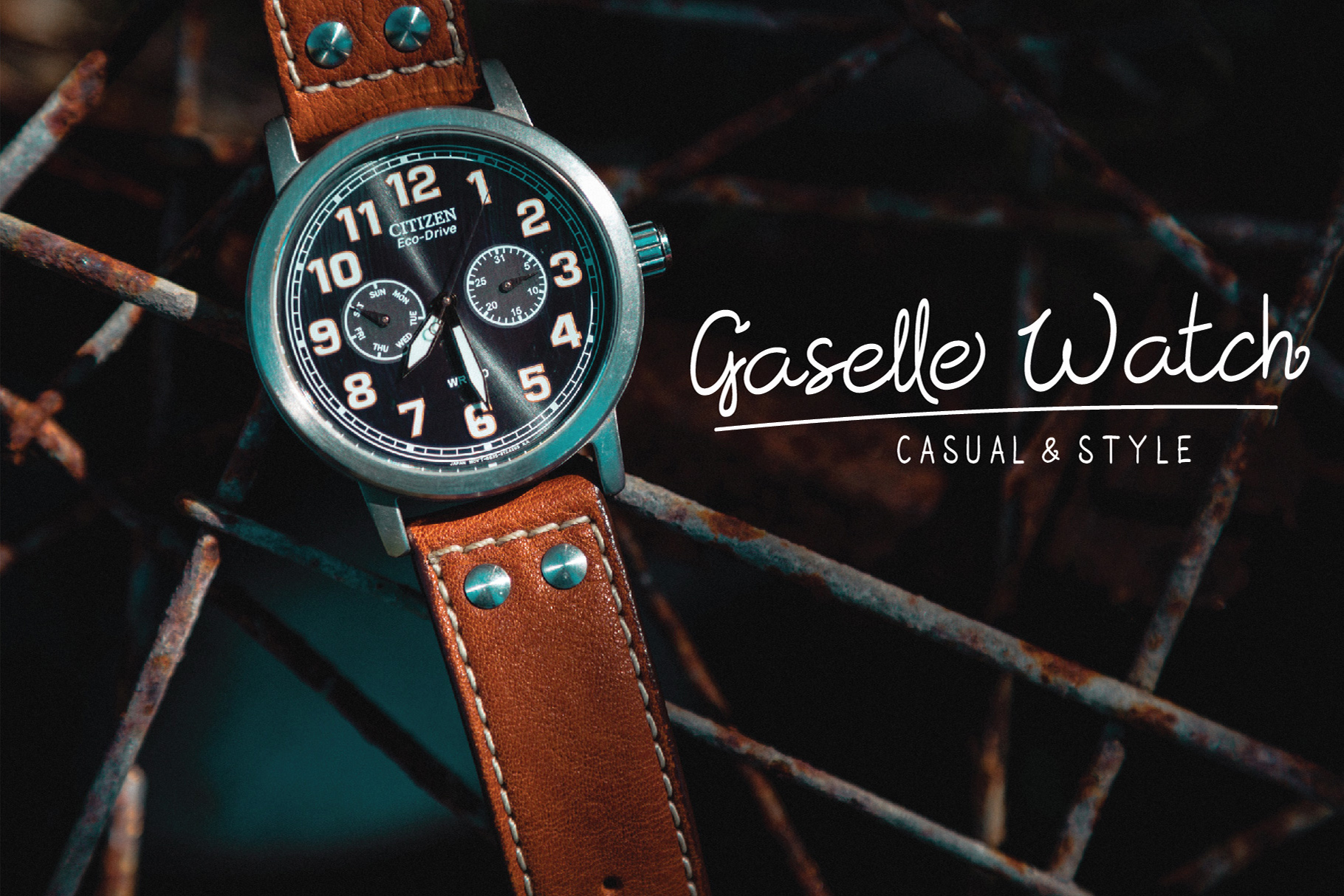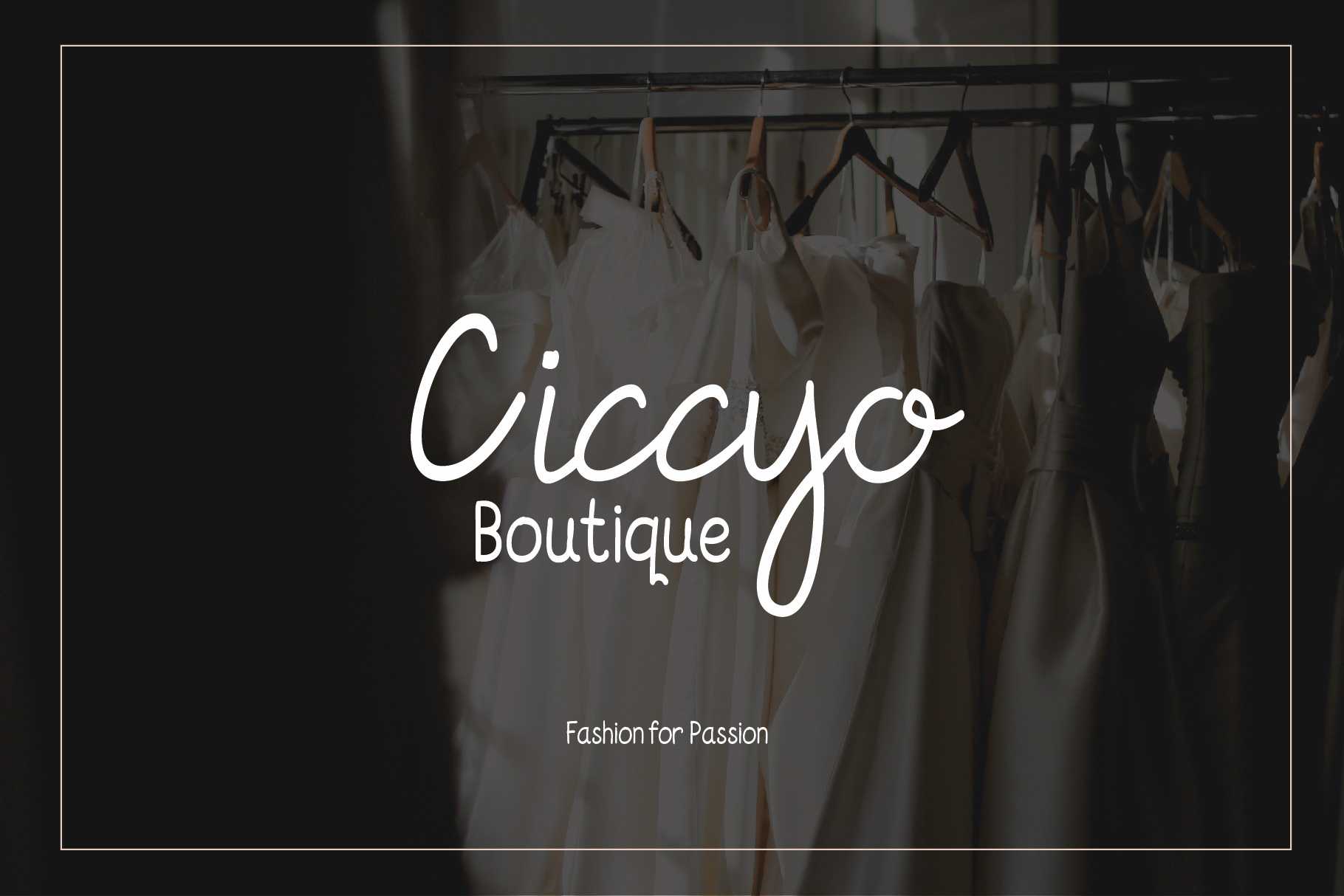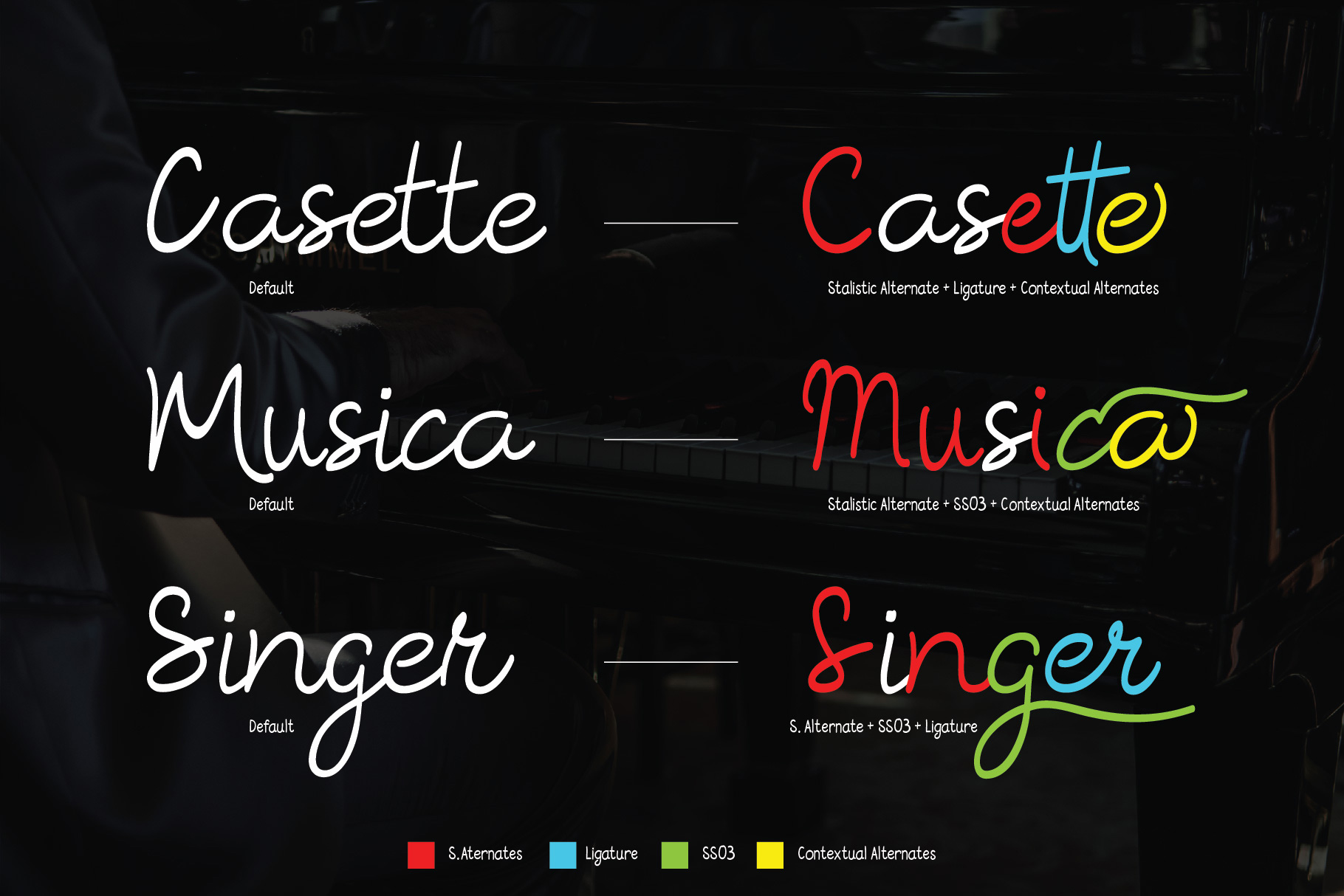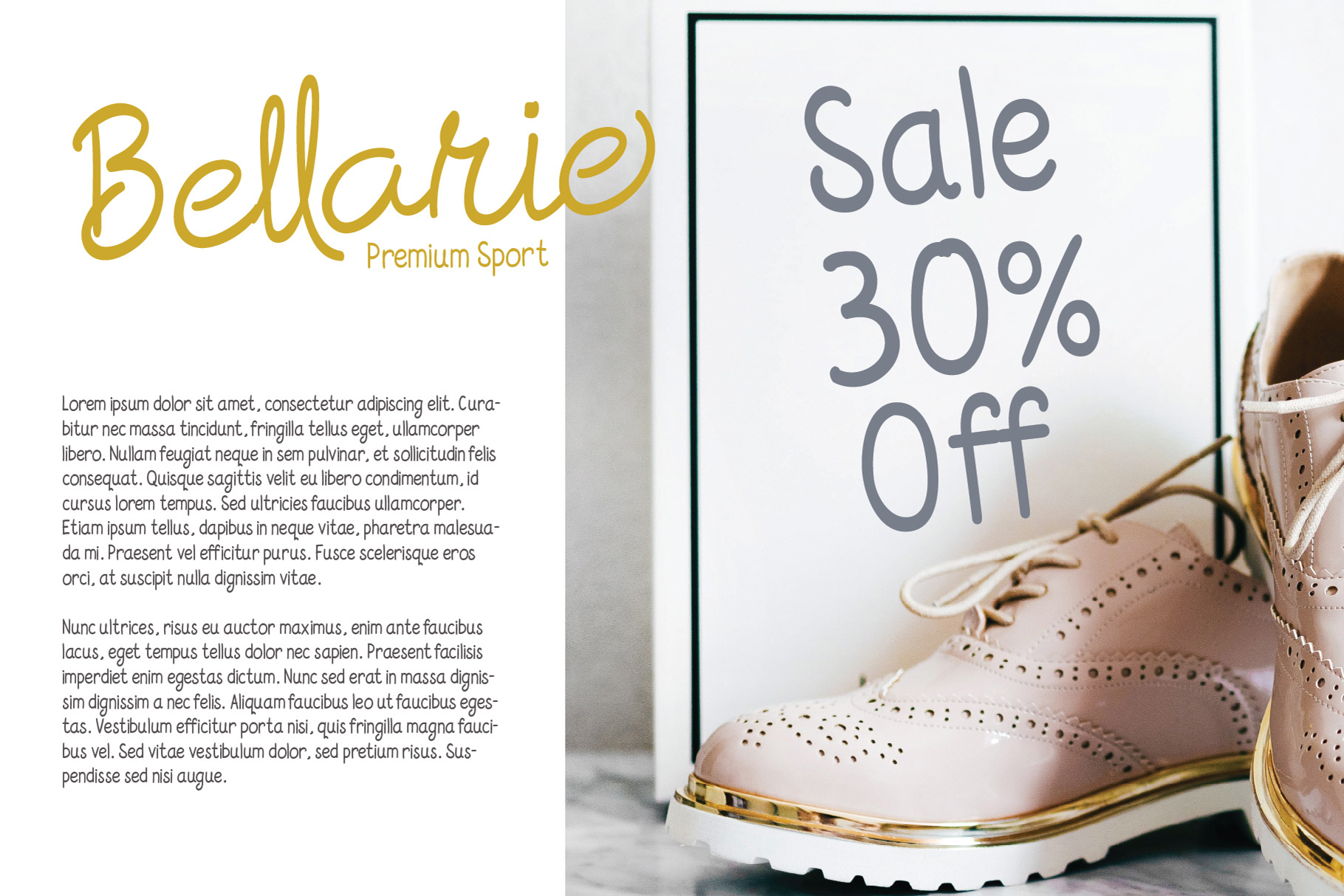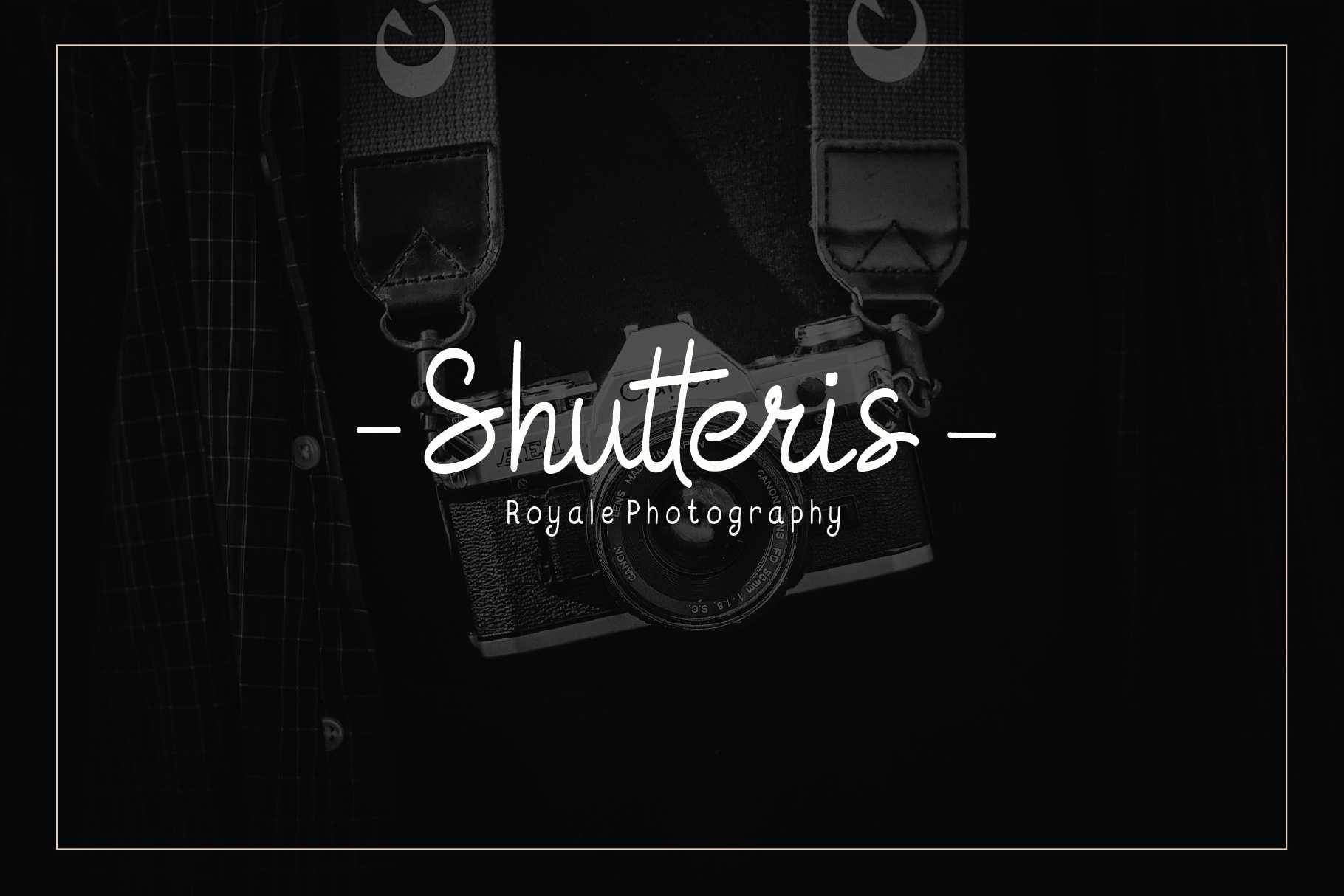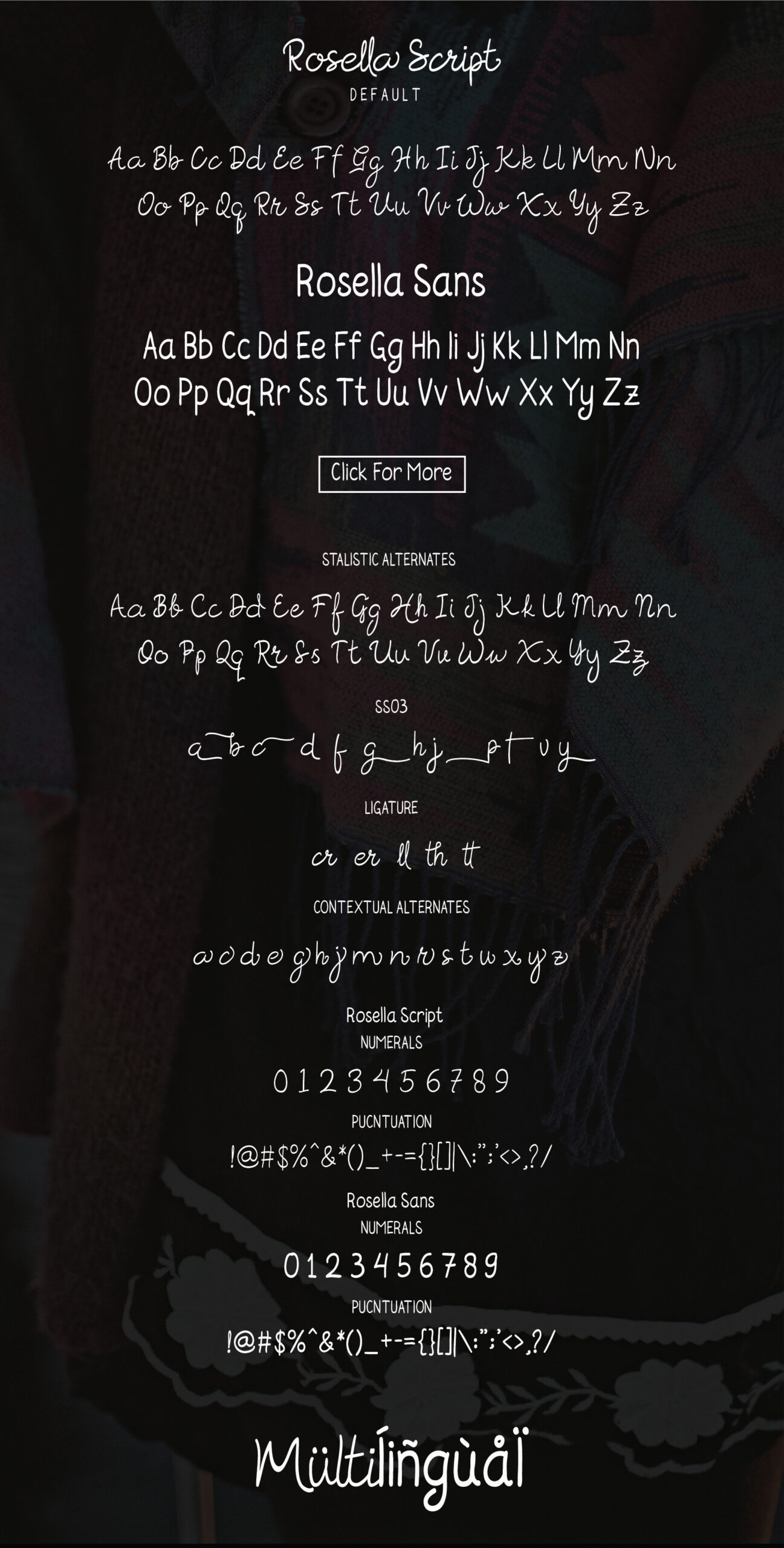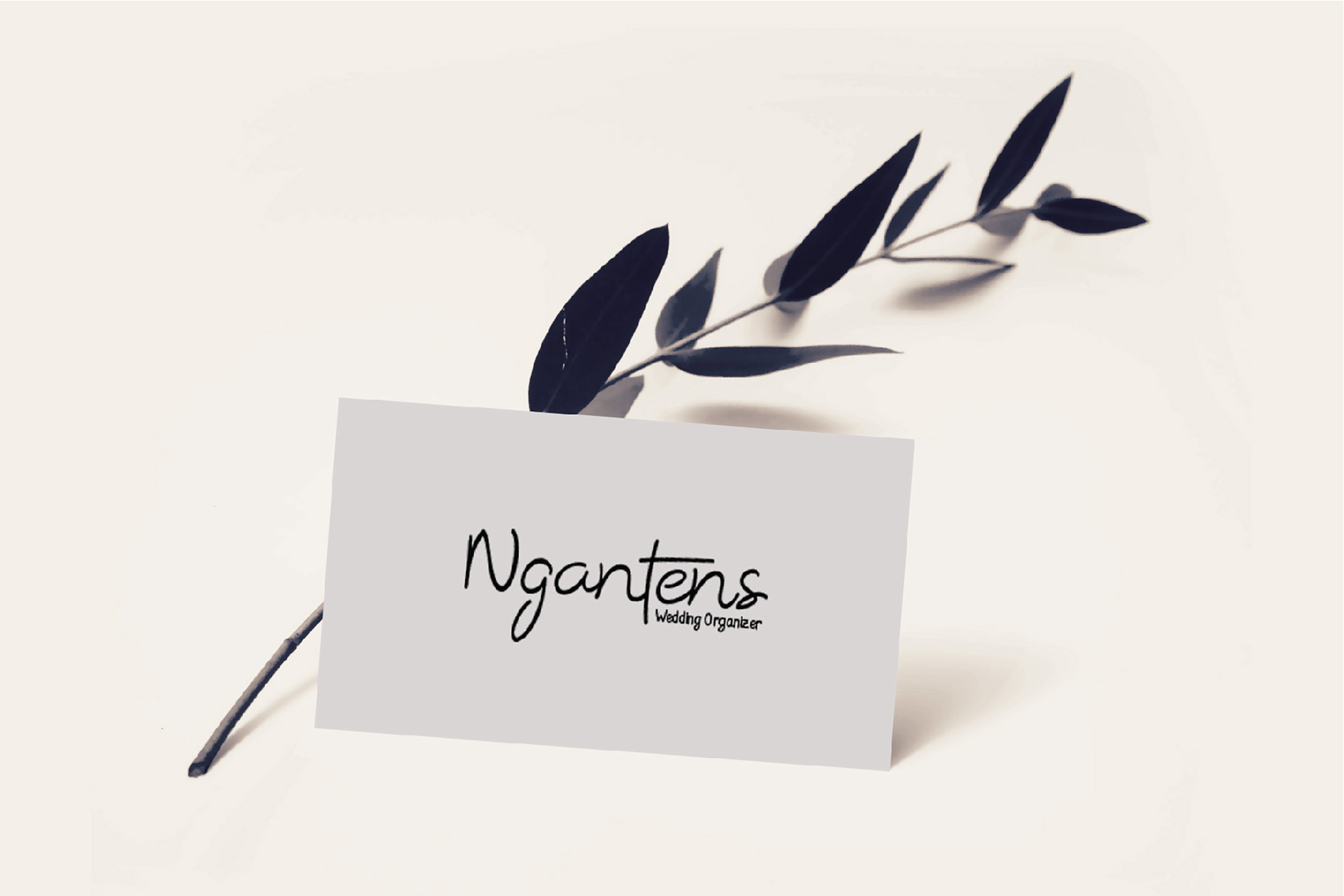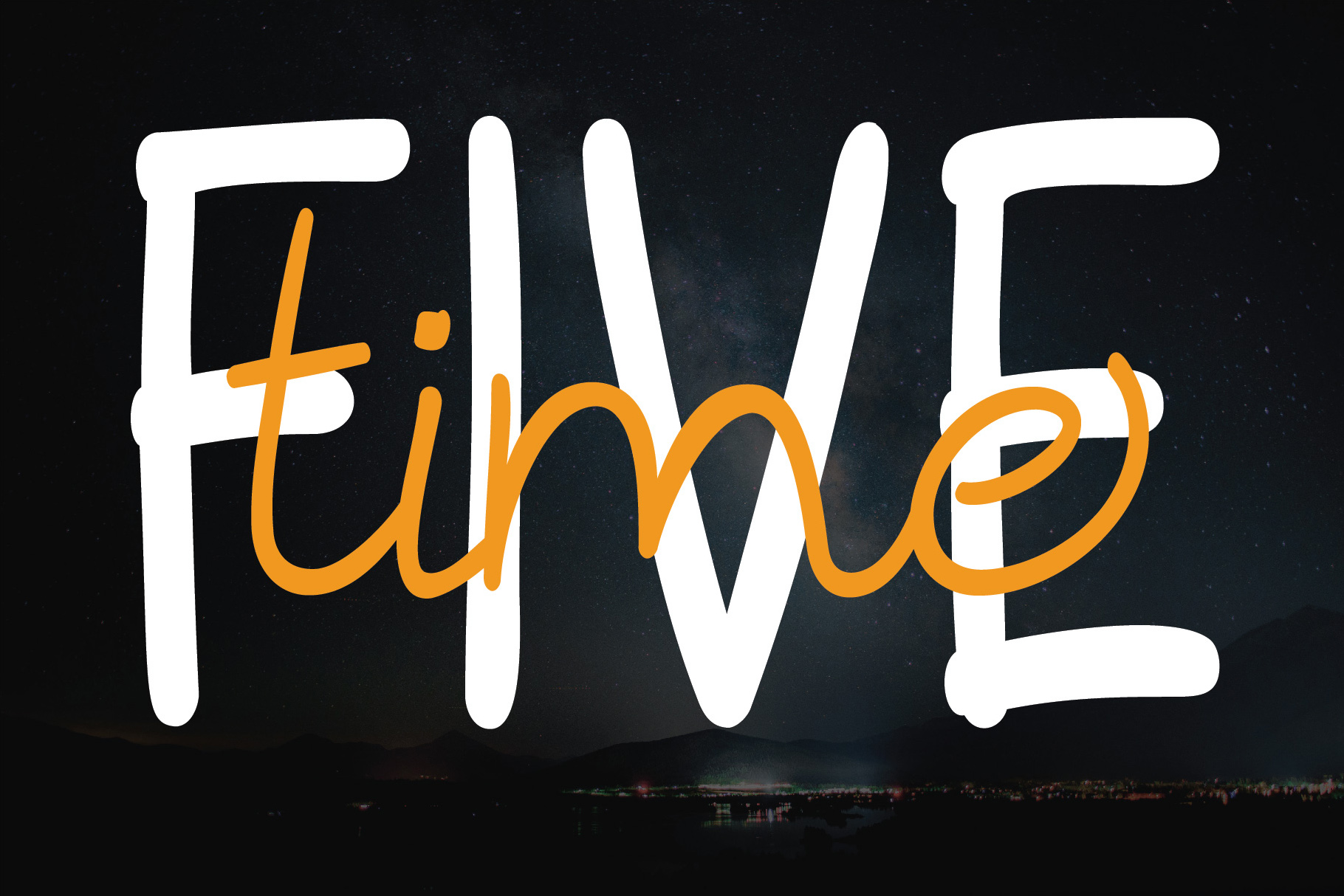
Rosella Font
About Rosella Font
Rosella is a monoline font duo. The hallmark handwritten style is complemented by a sans serif font to give the set a well balanced and thoughtful look. Use across the board for truly remarkable designs.